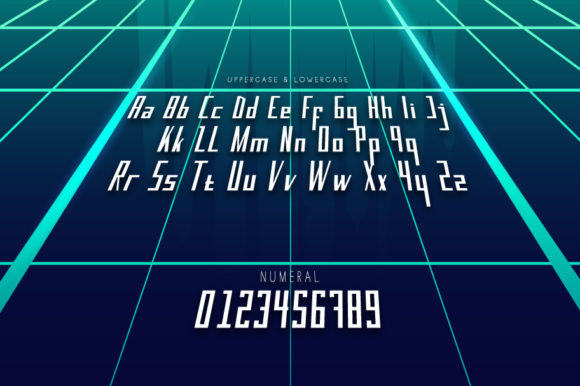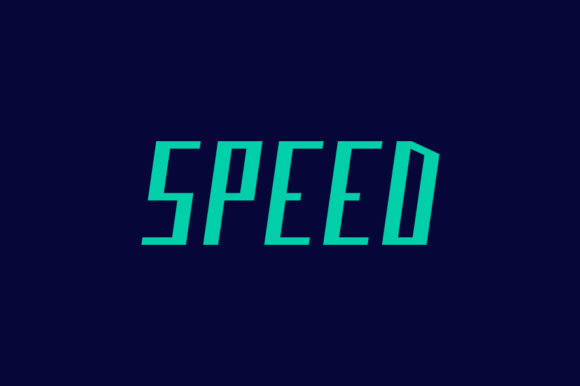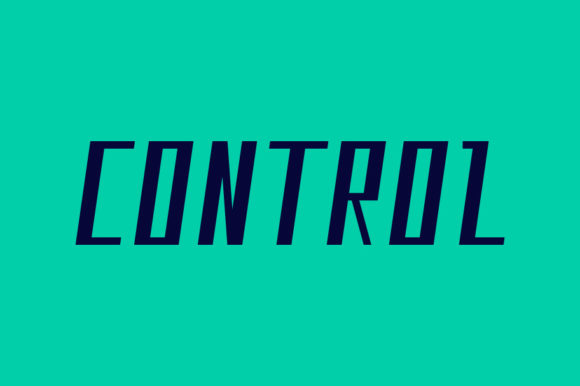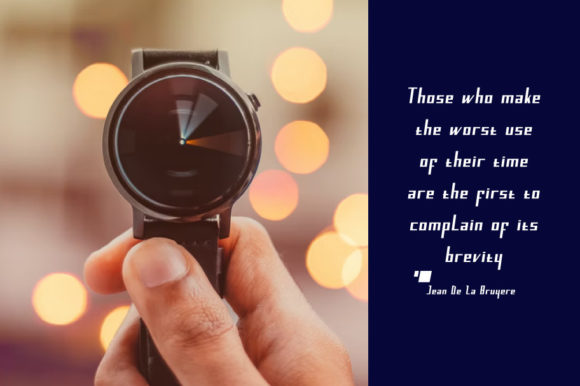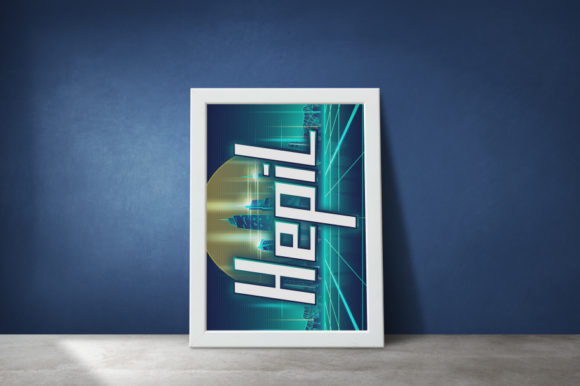
The Perfect Match for Your Next Creative Project
Have you ever stared at a blank canvas, waiting for that perfect spark of inspiration to strike? It’s a feeling many creatives know all too well. But what if you had the right tools to bring your vision to life? Introducing Hepil Font, a cool, bold, and sporty display font that’s about to take your designs to the next level.
This versatile font is more than just a pretty face – it’s a game-changer for designers. With its sleek lines and modern aesthetic, Hepil Font has the power to elevate any project, whether it’s a sports-themed brochure, a fashion brand’s campaign, or a bold logo design. Its value lies in its ability to add a touch of sophistication and edge to even the most mundane designs.
Hepil Font Key Features
- Font Style: Hepil Font is a modern sans-serif font, ideal for digital displays and print media.
- Unique Characteristics: Hepil Font features a unique blend of modern and minimalist design elements, resulting in a clean and elegant appearance.
Hepil Font Review
I recently had the chance to work with the Hepil font, and I’m excited to share my honest review.
- Unique Character**: The Hepil font has a distinctive character that sets it apart from other sans-serif fonts. Its quirky and playful feel makes it perfect for creative projects.
- Legibility**: The font is well-designed for body text, with clear and readable lines that make it easy on the eyes.
- Neutral Color Palette**: The font’s color palette is neutral, making it versatile and easy to pair with other design elements.
- Limited Font Weight Options**: The Hepil font only comes in a few font weights, which can limit its versatility in certain design contexts.
- Not Suitable for Headlines**: While the font is great for body text, its lack of bold weight options makes it less suitable for headlines and titles.
- May Not Work Well in Small Sizes**: The font’s quirky feel can sometimes make it difficult to read in small sizes, which may require additional design adjustments.
The Hepil font is a solid choice for creative projects, but it may not be the best fit for every design context. With its unique character and legible lines, it’s perfect for body text, but its limitations in font weight options and small size readability may require some additional design consideration.
Getting the Most Out of Hepil Font
To get the most out of Hepil Font, use it for:
- Creative projects, such as graphic design and digital art.
- Branding and logo design, where a unique and distinctive font is desired.
- Headlines and titles, where a bold and eye-catching font is needed.
Alternatives to Hepil Font
Poppins Font
Poppins Font is a sans-serif typeface designed by Indian Type Foundry. It is known for its clean and modern look, making it suitable for digital and print media. Use Poppins for titles, headings, and body text where you want to convey a sense of simplicity and elegance.
Compared to Hepil Font, Poppins is more minimalist and has a more neutral tone. Hepil Font has a softer and more rounded feel, while Poppins is more geometric and sharp.
Montserrat Font is a sans-serif typeface designed by Julieta Ulanovsky. It is inspired by the urban typography of the Montserrat neighborhood in Buenos Aires, Argentina. Use Montserrat for titles, headings, and body text where you want to convey a sense of modernity and urbanity.
Compared to Hepil Font, Montserrat is more geometric and has a stronger emphasis on vertical lines. Hepil Font has a softer and more rounded feel, while Montserrat is more angular and edgy.
Open Sans Font is a sans-serif typeface designed by Steve Matteson. It is a clean and modern typeface that is highly legible in digital media. Use Open Sans for body text where you want to convey a sense of simplicity and clarity.
Compared to Hepil Font, Open Sans is more neutral and has a more subtle feel. Hepil Font has a softer and more rounded feel, while Open Sans is more geometric and straightforward.